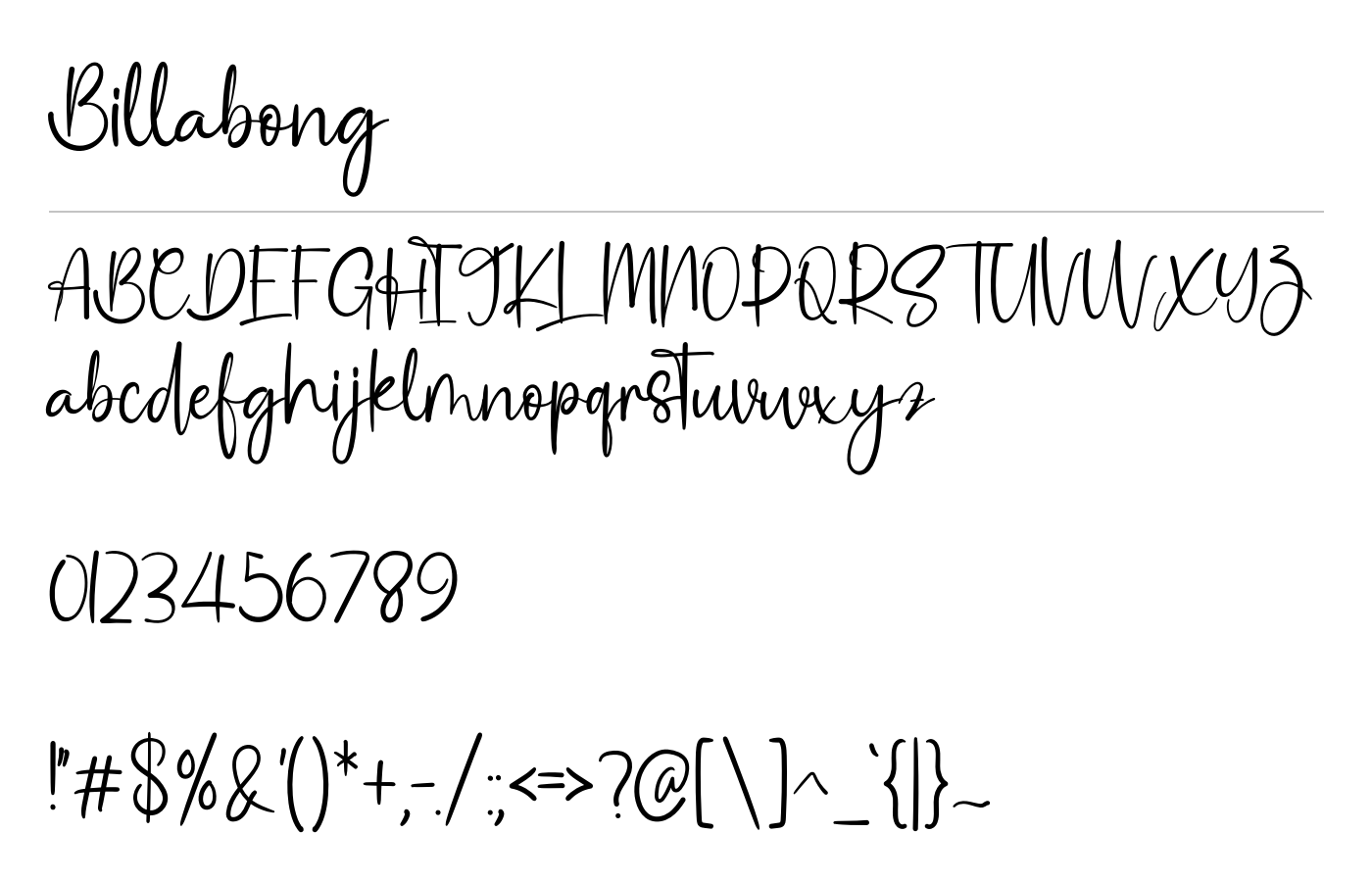
Billabong is a playful and casual script font that captures a hand-drawn, natural feel with its flowing, tall letterforms and slight irregularities. Its light weight and airy strokes give it a relaxed, approachable personality, making it ideal for brands or designs that want to convey warmth, creativity, and a laid-back vibe. This font works beautifully in logos, packaging, and social media graphics where a friendly, informal touch is desired.
Billabong Font